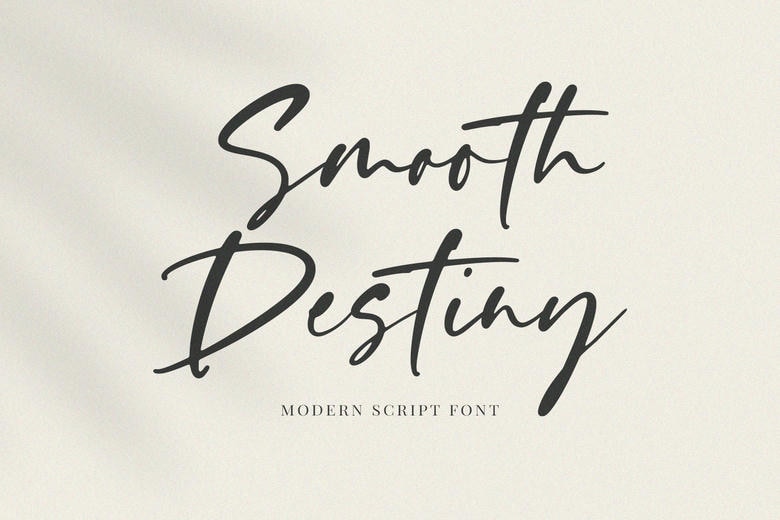
Smooth Destiny Font
Smooth Destiny is a modern handwritten script font, designed with care just for you. It works well for product packaging, branding, magazines, social media, weddings, or simply adding a personal touch to your words.
Smooth Destiny Handwritten Script Font